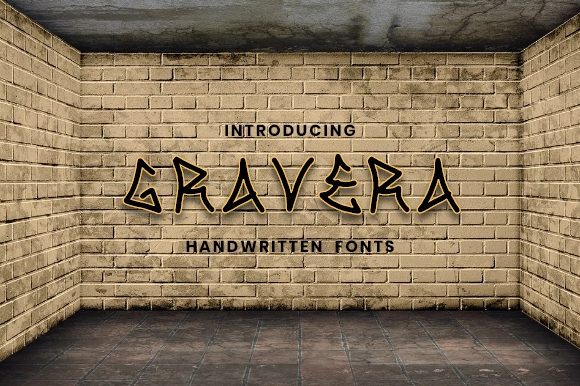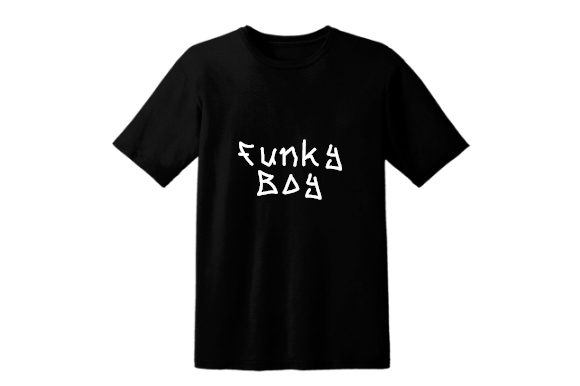
Gravera Font
About Gravera Font
Gravera is an outstanding handwritten font, the right choice for all the projects that you wish to highlight! Distinct and sophisticated, Gravera will look particularly adept when used in logos, branding, packaging design, and much more!